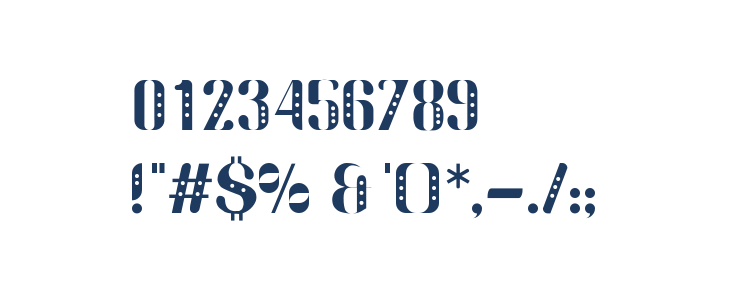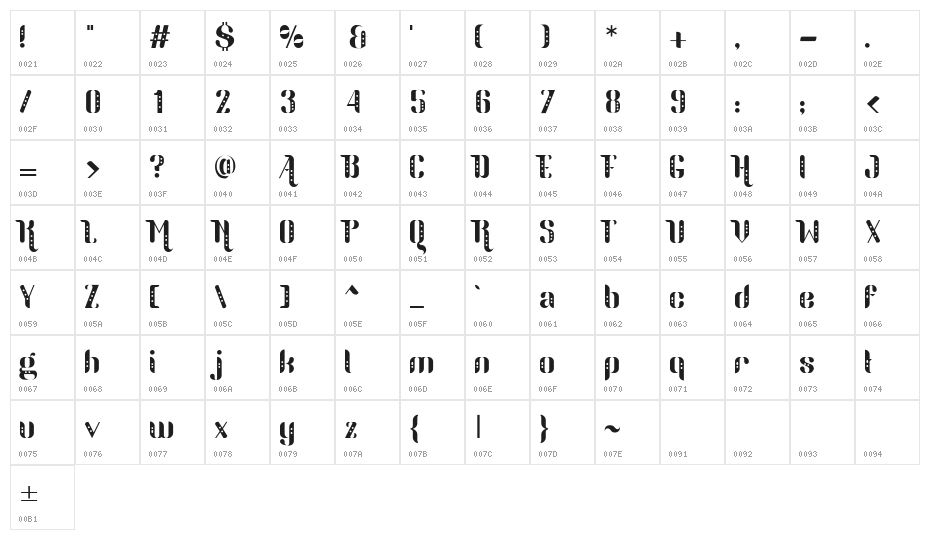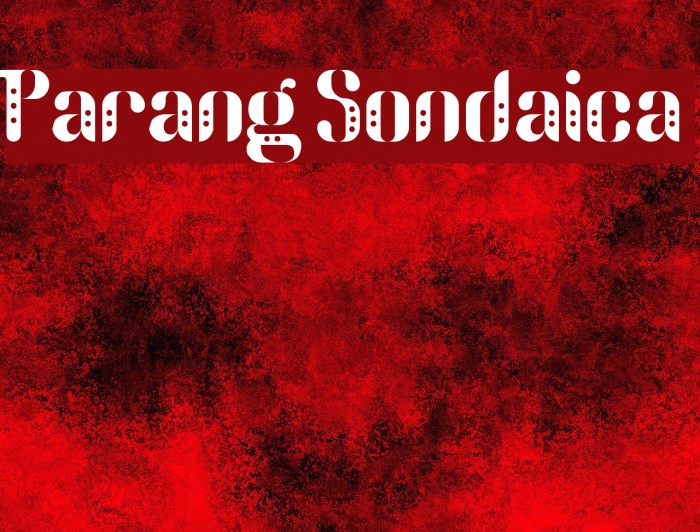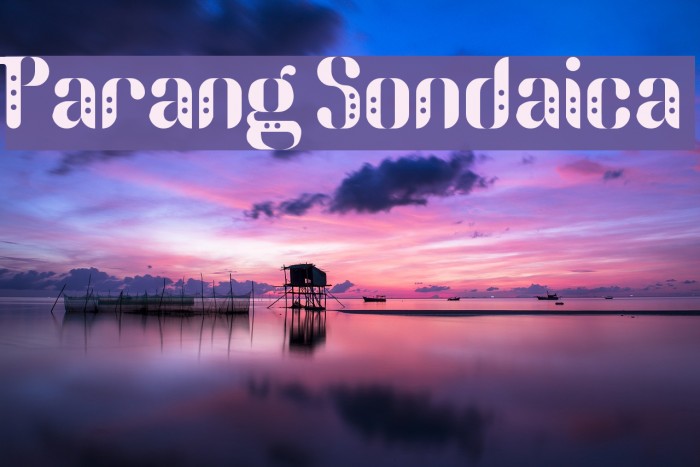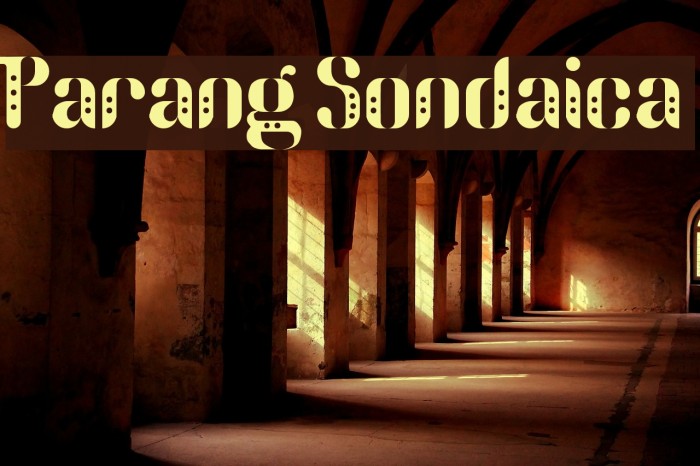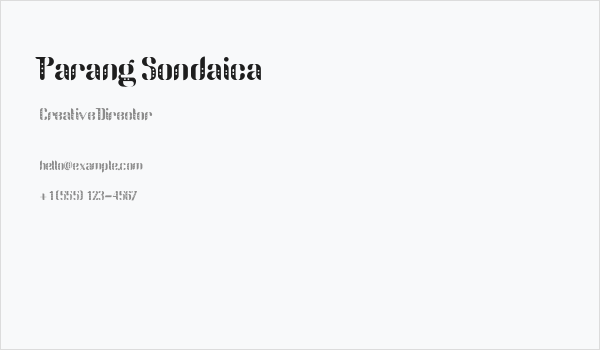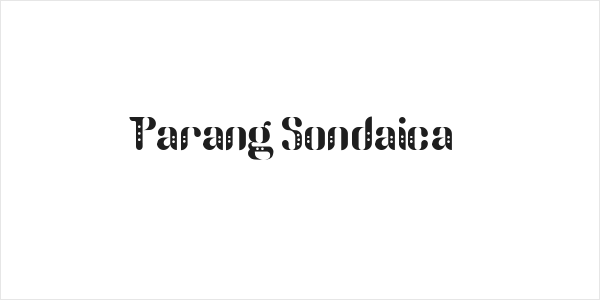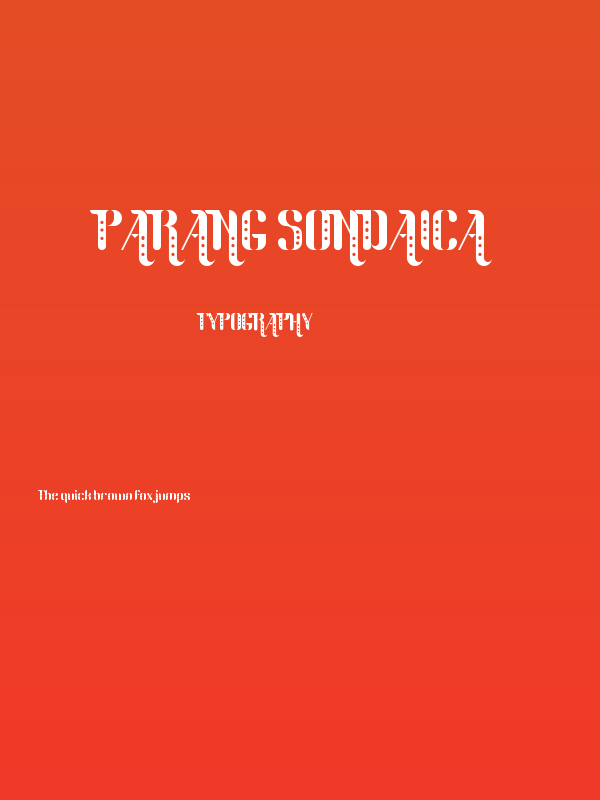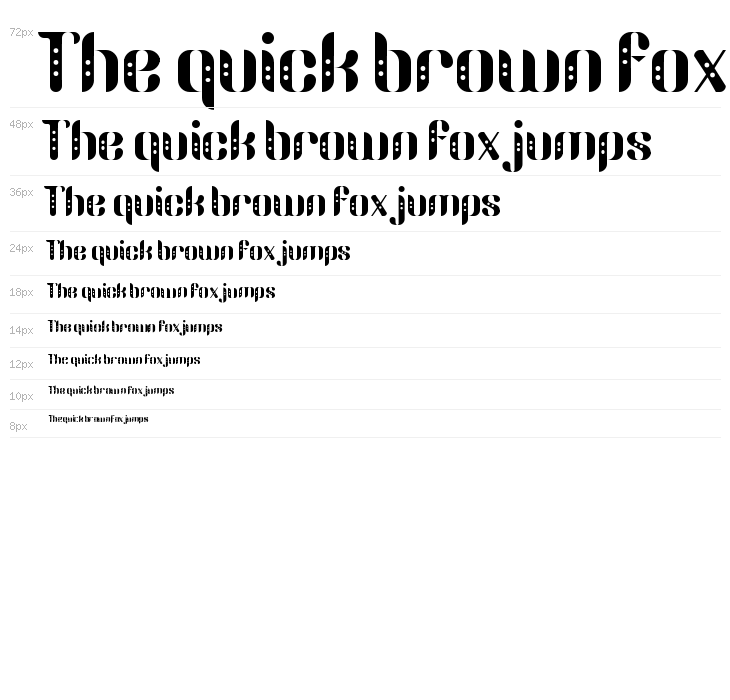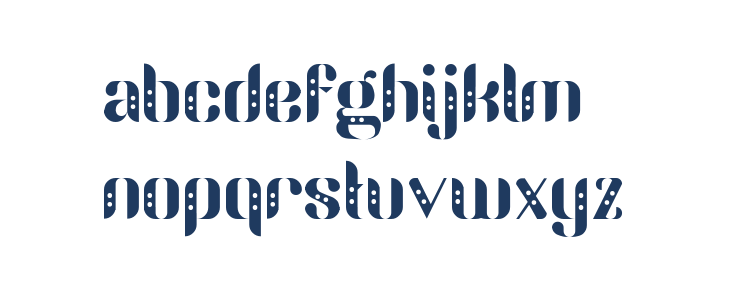
Parang Sondaica Font
Parang Sondaica Description
This font features a bold and decorative style with a unique dotted pattern within each character, creating a striking visual effect. The uppercase letters are tall and imposing, while the lowercase letters maintain a consistent style with rounded edges and similar dot patterns. Numbers and special characters follow the same design principles, ensuring uniformity across all glyphs. The font's playful yet structured appearance makes it suitable for eye-catching designs. Its distinctiveness is enhanced by the contrast between the solid strokes and the dotted interiors, offering a modern twist on traditional letterforms.
| Proposed Projects | Ideal for branding, posters, album covers, and any project requiring a bold, artistic touch. |